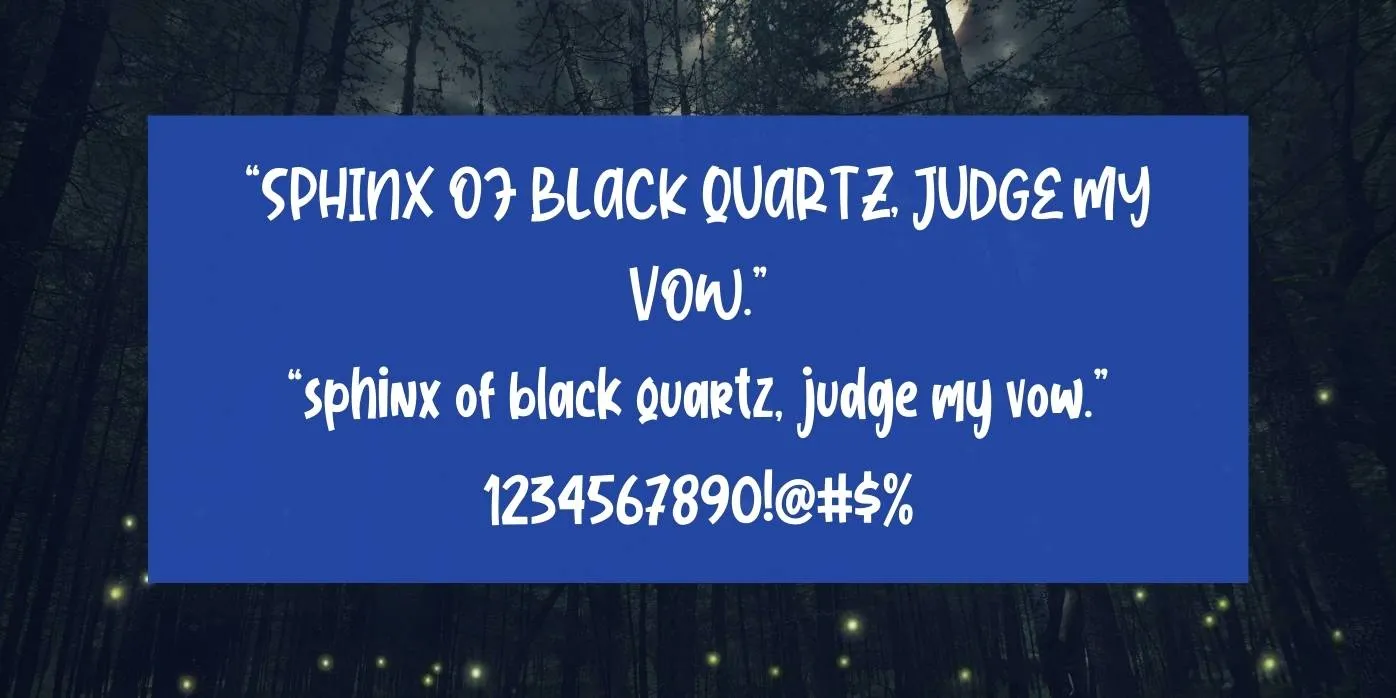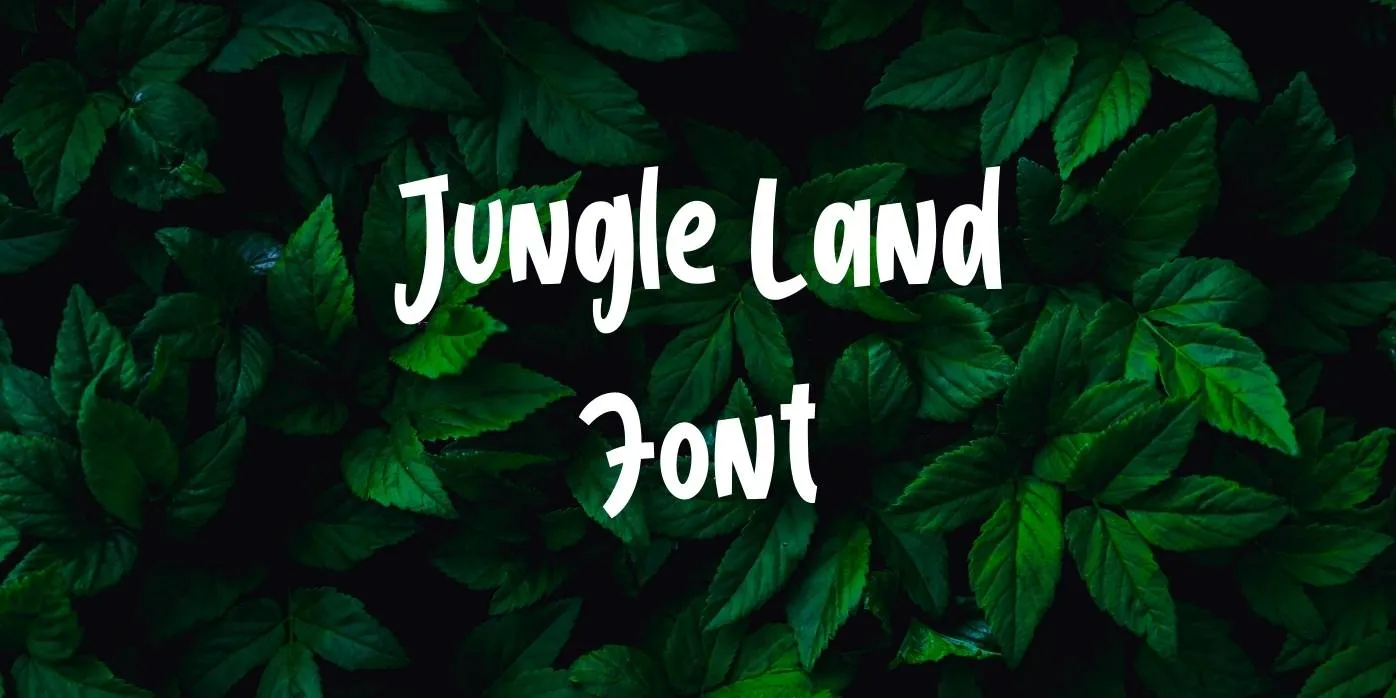
Jungle Land Font
Jungle Land Font is a fancy font that was created in the early 1900s. It is a very unique font that has a lot of history behind it. The Jungle Land Font was created by an artist named John Mayhew. He was inspired by the work of an African American artist named Charles Henry Turner.
Turner was known for his beautiful paintings of animals and landscapes. This font has special characters that will provide an extraordinary touch when used with againts font. Mayhew wanted to create a font that would be able to capture the same feeling and emotion that Turner’s paintings did. It is a very versatile font that can be used in many different ways.